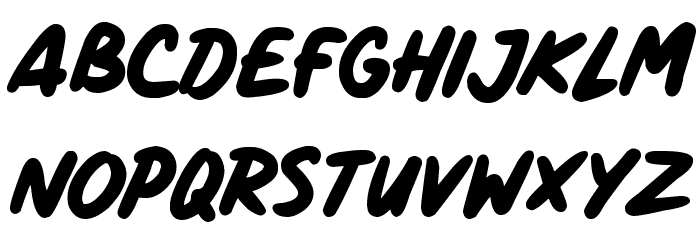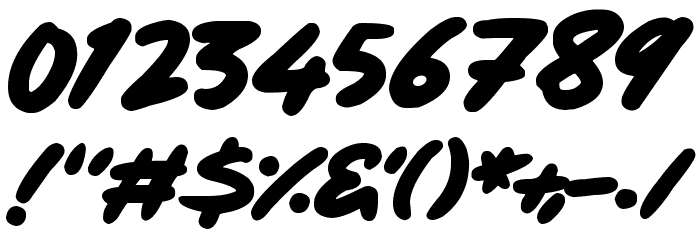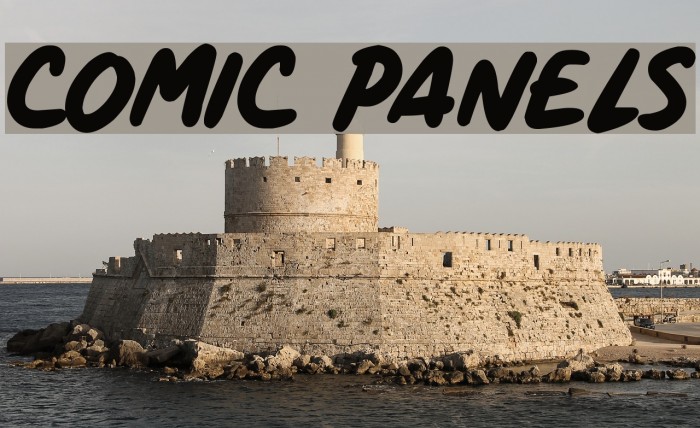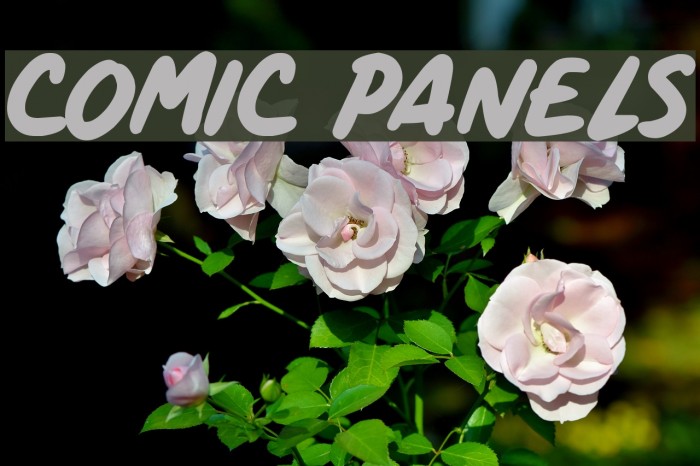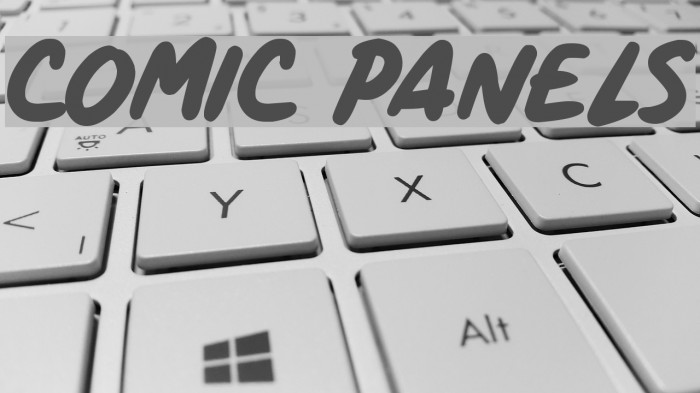
Comic Panels Font
This font features a bold, playful style reminiscent of comic book lettering. The characters are rounded and slightly slanted, giving a dynamic and energetic feel. The uppercase and lowercase letters maintain a consistent weight, with smooth curves and a hand-drawn appearance. The numbers and special characters follow the same lively design, making the font suitable for informal and fun contexts. The overall look is casual and approachable, ideal for projects that require a touch of humor and creativity.
A bold, playful font with a comic book style and hand-drawn appearance.
- Proposed Projects: Ideal for comic books, children's books, playful branding, and posters.
- Overall Style: Playful, Comic